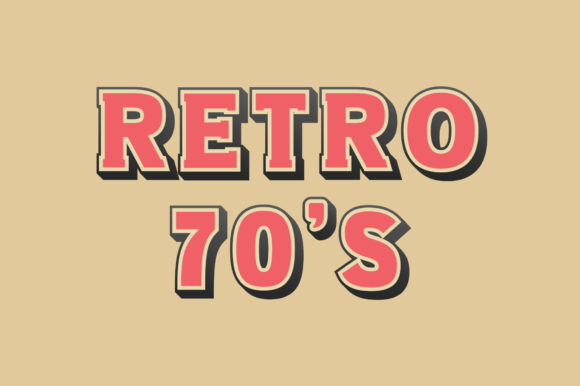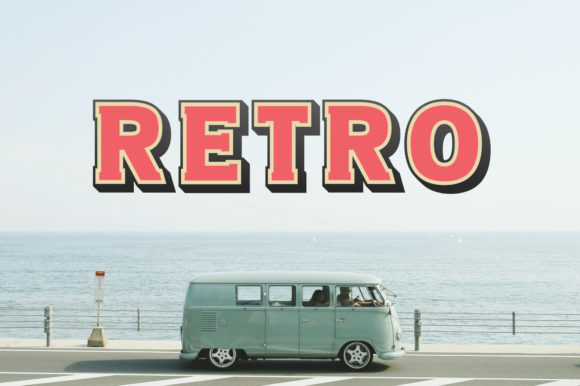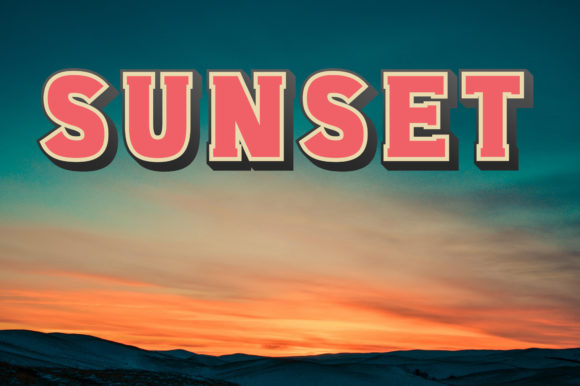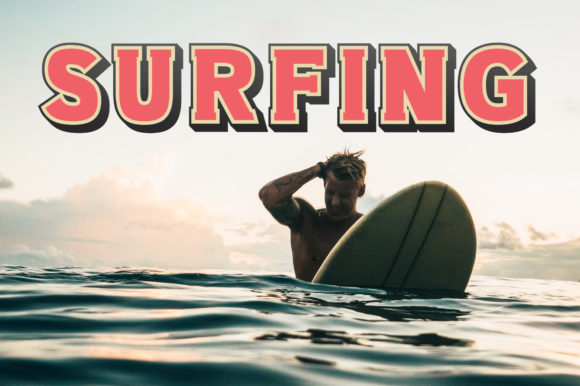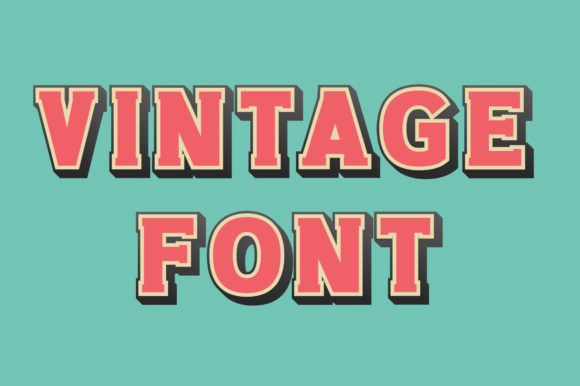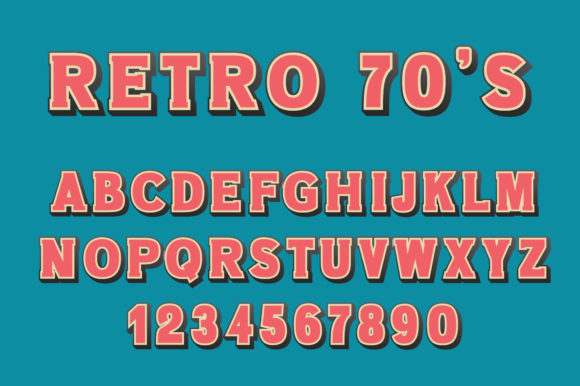
Retro 70s Font
About Retro 70s Font
Introducing Retro 70s, a bold and vibrant display font that captures the essence of the groovy and energetic 1970s era. With its playful and distinctive letterforms, Retro 70s font is designed to make your creative ideas shine and stand out from the crowd.
The Retro 70s font pays homage to the funky typography styles of the 70s, characterized by bold and exaggerated letter shapes, vibrant colors, and a sense of fun and excitement. Each letter is carefully crafted to reflect the retro aesthetic, featuring unique curves, flourishes, and geometric elements that embody the spirit of the era.
By adding Retro 70s font to your creative projects, you can instantly transport your audience back to the disco era, evoking a sense of nostalgia and capturing the attention of viewers. Whether you’re designing posters, album covers, party invitations, or any other creative materials, Retro 70s font will infuse your designs with a groovy and lively vibe.
To fully appreciate the charm and impact of Retro 70s font, it is recommended to use it in bold and vibrant colors that were popular during the 70s, such as bright oranges, yellows, pinks, and blues. Combine the font with retro-inspired graphics, patterns, and illustrations to create a cohesive and immersive visual experience.
Remember that Retro 70s font is a versatile tool that can be applied to various design projects, from branding and advertising to social media graphics and more. Its bold and expressive nature ensures that your messages will be conveyed with enthusiasm and a touch of nostalgia.
So, get ready to groove with Retro 70s font and let it add a dose of retro charm and excitement to your creative ideas. Watch as your designs come alive with the spirit of the 70s, captivating your audience and making a memorable impression. Embrace the boldness and fun of Retro 70s font, and unleash your creativity in a vibrant and groovy way.